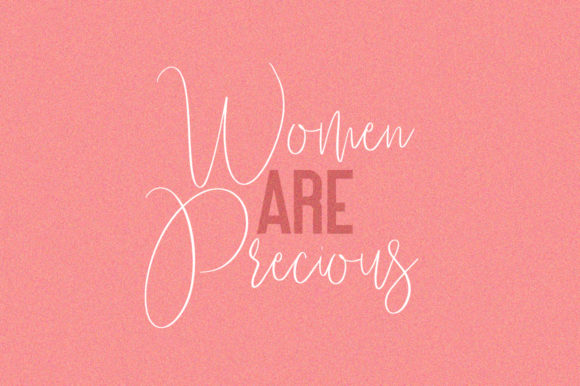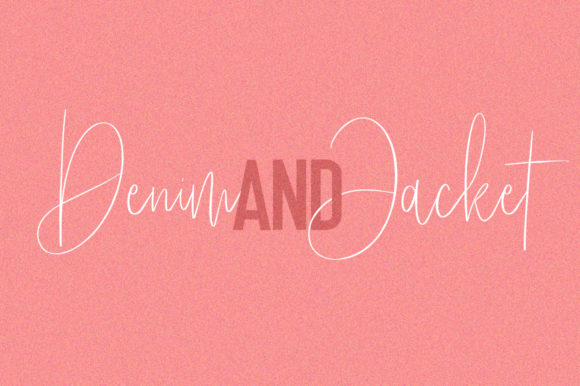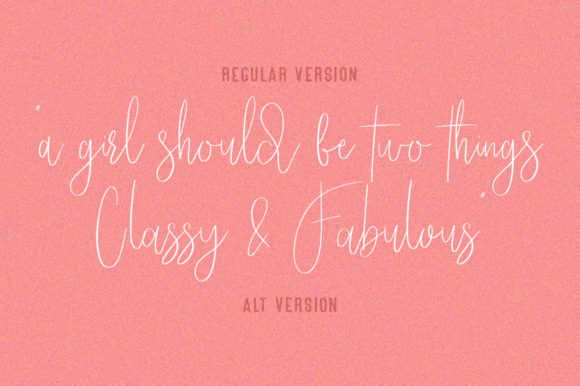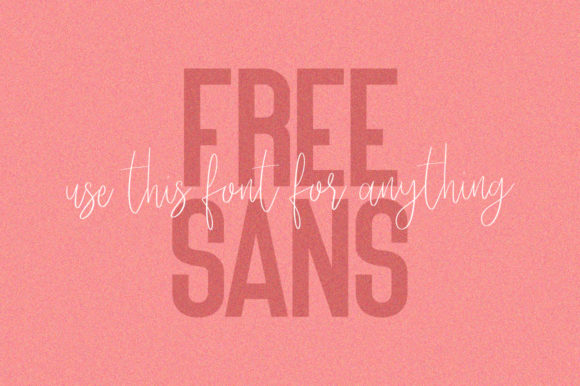
About Kaydens Font
Kaydens is a versatile duo font. Two beautiful scripts and one amazing sans serif. Its casual charm makes it appear wonderfully down-to-earth, readable and, ultimately, incredibly versatile. Kaydens will look outstanding in any context, whether itβs being used on busy backgrounds or as a standalone headline!